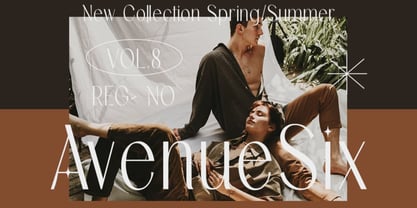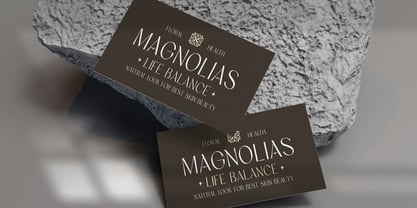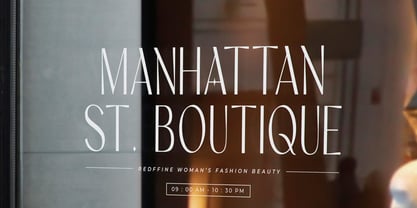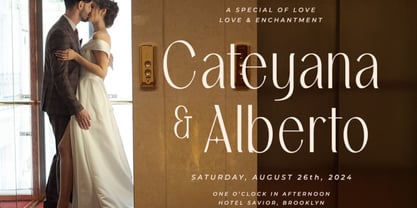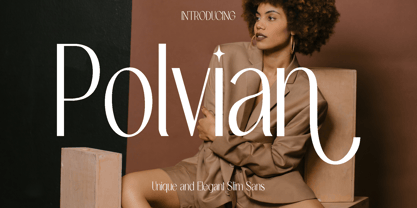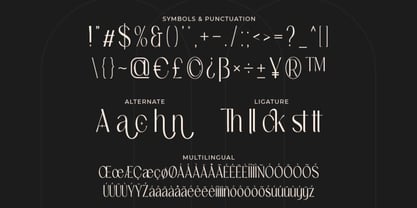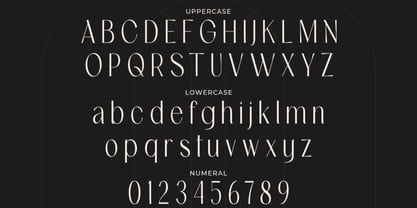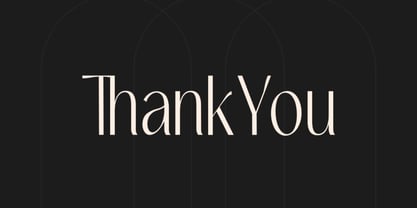
Polvian
by Only Fonts
The Polvian Font Family was designed by Olivia Love and published by Only Fonts. Polvian contains 1 styles. More about this family
Polvian is a refined slim sans serif font designed to express modern elegance through simplicity and precision. Inspired by contemporary minimalism and clean visual aesthetics, Polvian features slender proportions and carefully balanced letterforms that create a graceful and sophisticated appearance. Every character is crafted to deliver clarity while maintaining a distinctive personality that feels both stylish and professional. This font shines in projects where subtle elegance makes the strongest impact. Polvian is perfect for modern branding, luxury logos, editorial layouts, fashion campaigns, minimalist posters, and sleek digital interfaces. Its slim structure allows for airy compositions and refined typography, making it especially effective in high-end design where space, balance, and visual harmony are essential. Polvian brings a calm, confident, and polished tone to your work. It adapts effortlessly across print and digital applications, from elegant invitations and website design to social media visuals and product packaging. With its blend of readability and unique style, Polvian helps your designs communicate with clarity while maintaining a modern and elevated aesthetic. Designed for creatives who value precision and sophistication, Polvian transforms simple text into a visual statement. It is an essential addition for designers looking to create clean, contemporary, and memorable designs. Polvian Font Features: • Uppercase and lowercase characters • Symbols, punctuation, and numerals • Ligatures and alternate characters • Multilingual support
Designers: Olivia Love
Foundry: Only Fonts